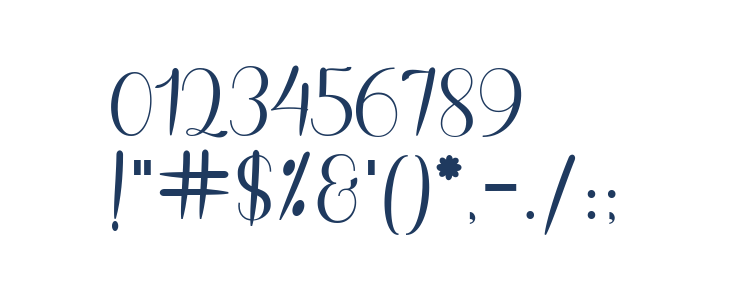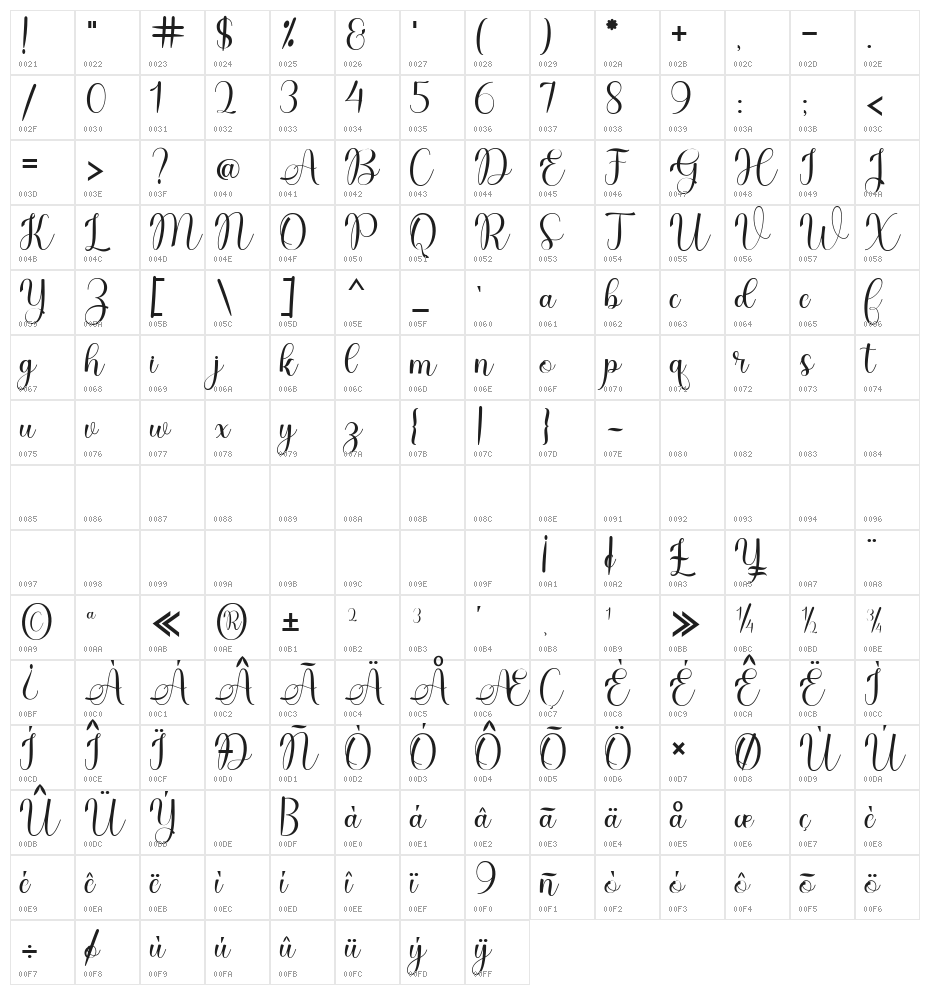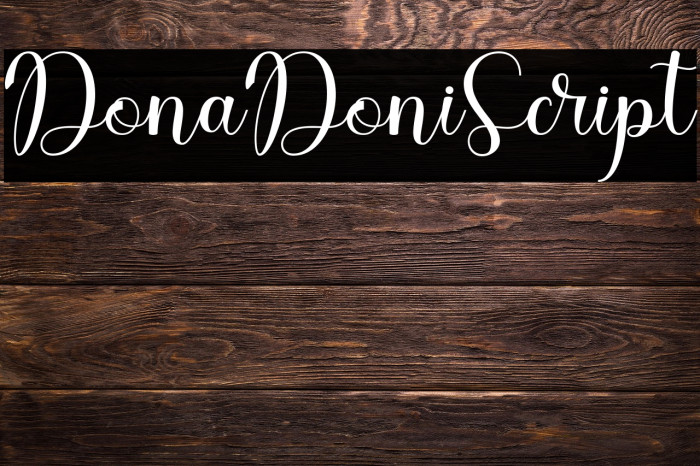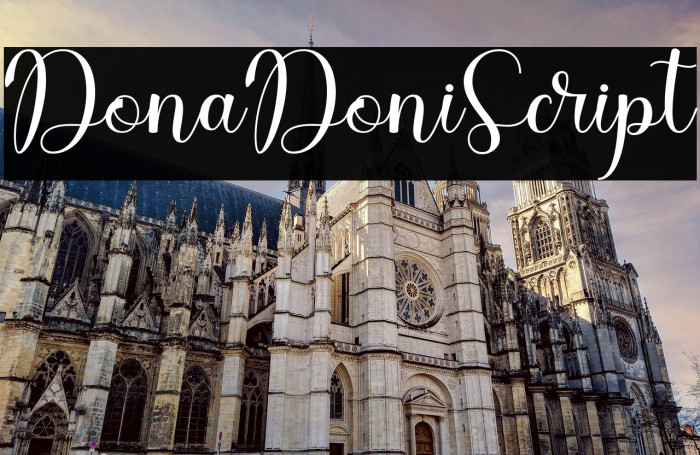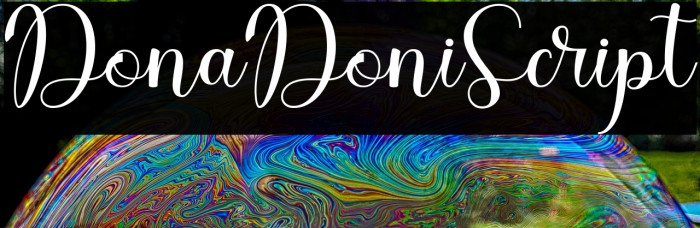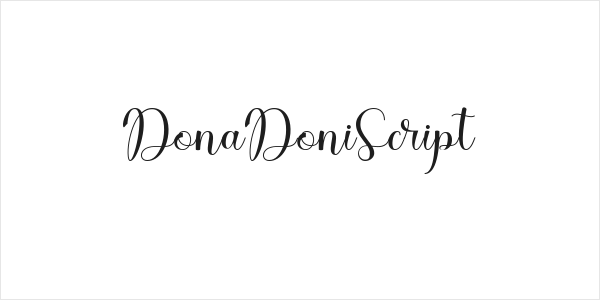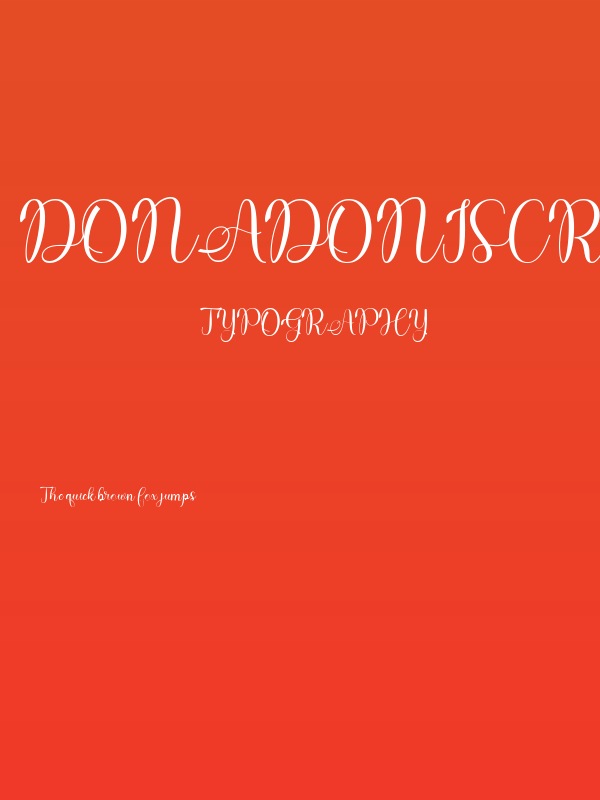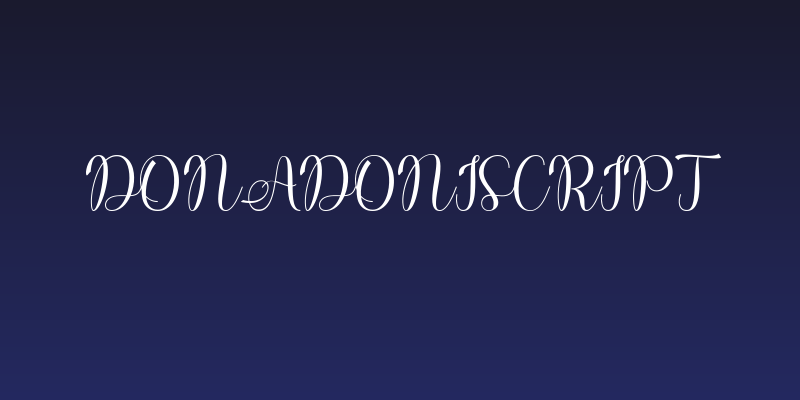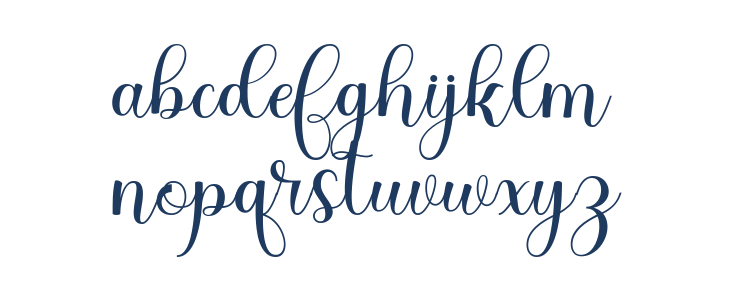
DonaDoniScript Font
DonaDoniScript Description
This elegant script font features flowing, interconnected letters with a graceful and sophisticated appearance. The uppercase letters are ornate, with flourishes that add a touch of luxury and refinement. The lowercase letters maintain a consistent style, with smooth curves and a fluid motion that enhances readability while retaining an artistic flair. The numerals are stylishly designed, complementing the overall aesthetic of the font. Special characters are included, each crafted with the same attention to detail, making this font versatile for various design needs.
| Overall Style | Elegant |
| Use Case | Logos, Invitations, Headlines |
| Proposed Projects | Ideal for wedding invitations, luxury branding, elegant stationery, and artistic posters. |